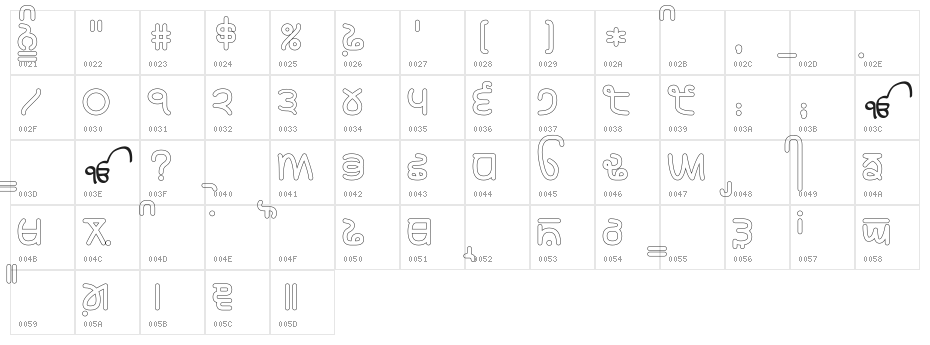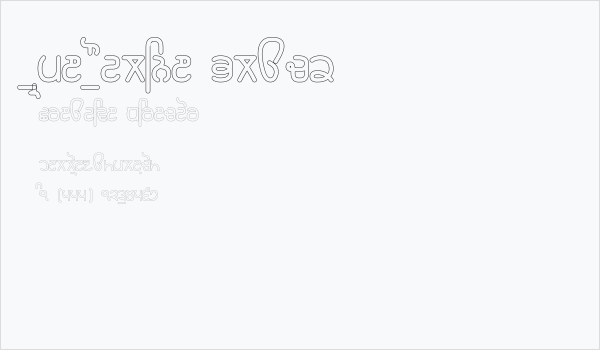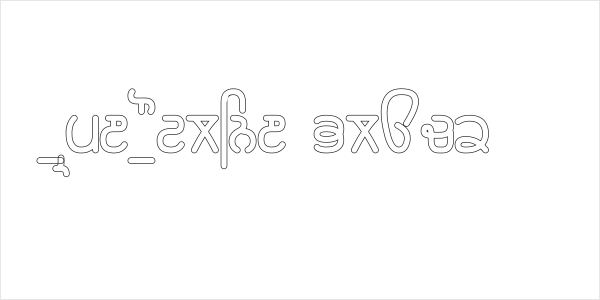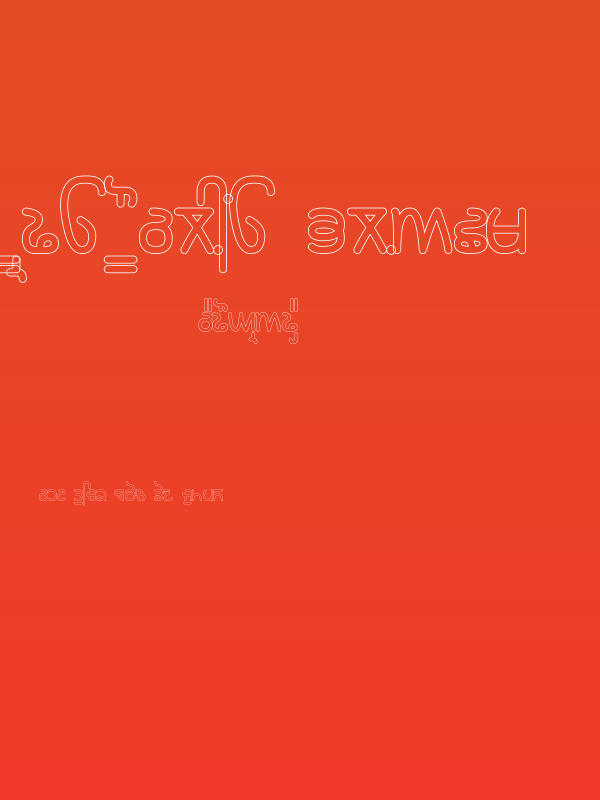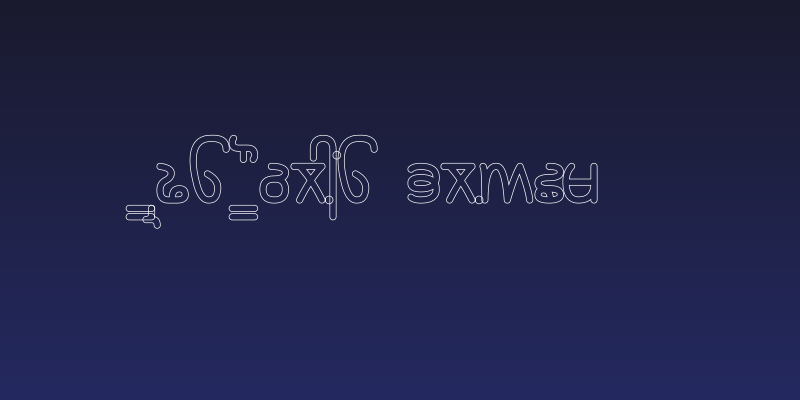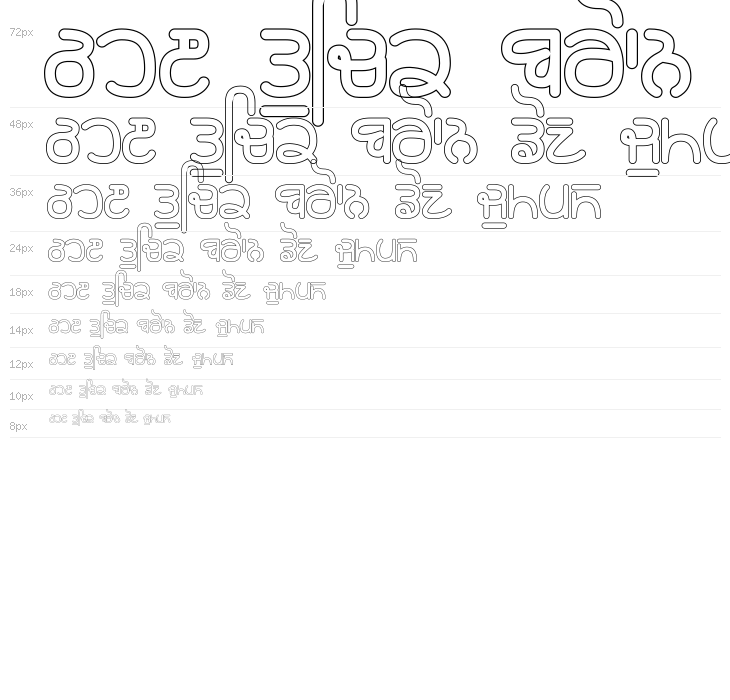
Rupe Outline Black Font
Rupe Outline Black Description
This font features a unique outline style with a modern and playful aesthetic. The characters are formed with a single continuous line, creating a hollow effect that emphasizes their geometric shapes. The design is clean and minimalistic, yet it maintains a sense of creativity and fun. The uppercase and lowercase letters are consistent in style, with rounded edges and smooth curves. Numbers and special characters follow the same design principles, ensuring a cohesive look across all elements. This font stands out due to its distinctive outline and is perfect for projects that require a bold and eye-catching typeface.
| Proposed Projects | Ideal for branding, posters, headlines, and creative design projects. |